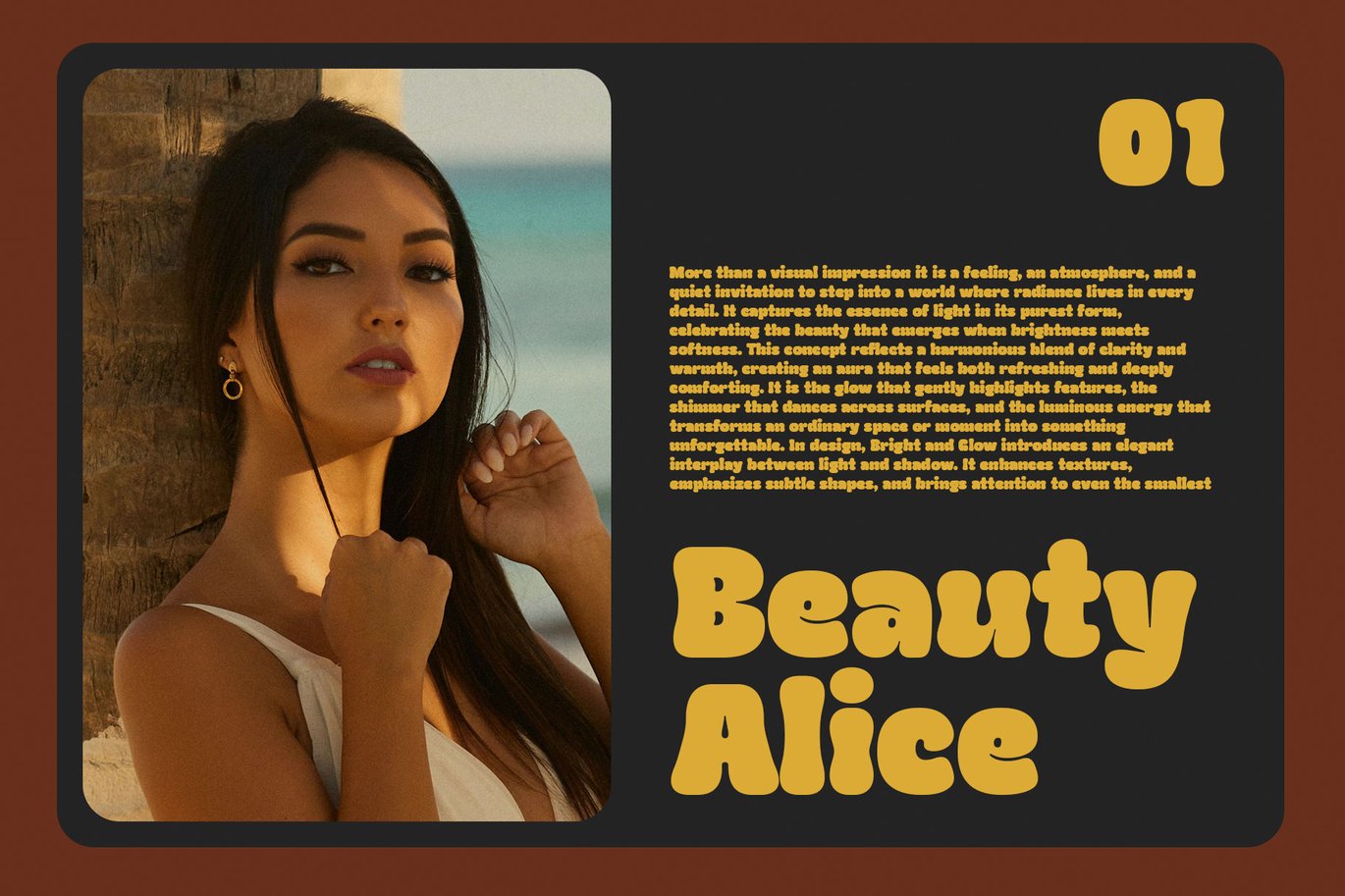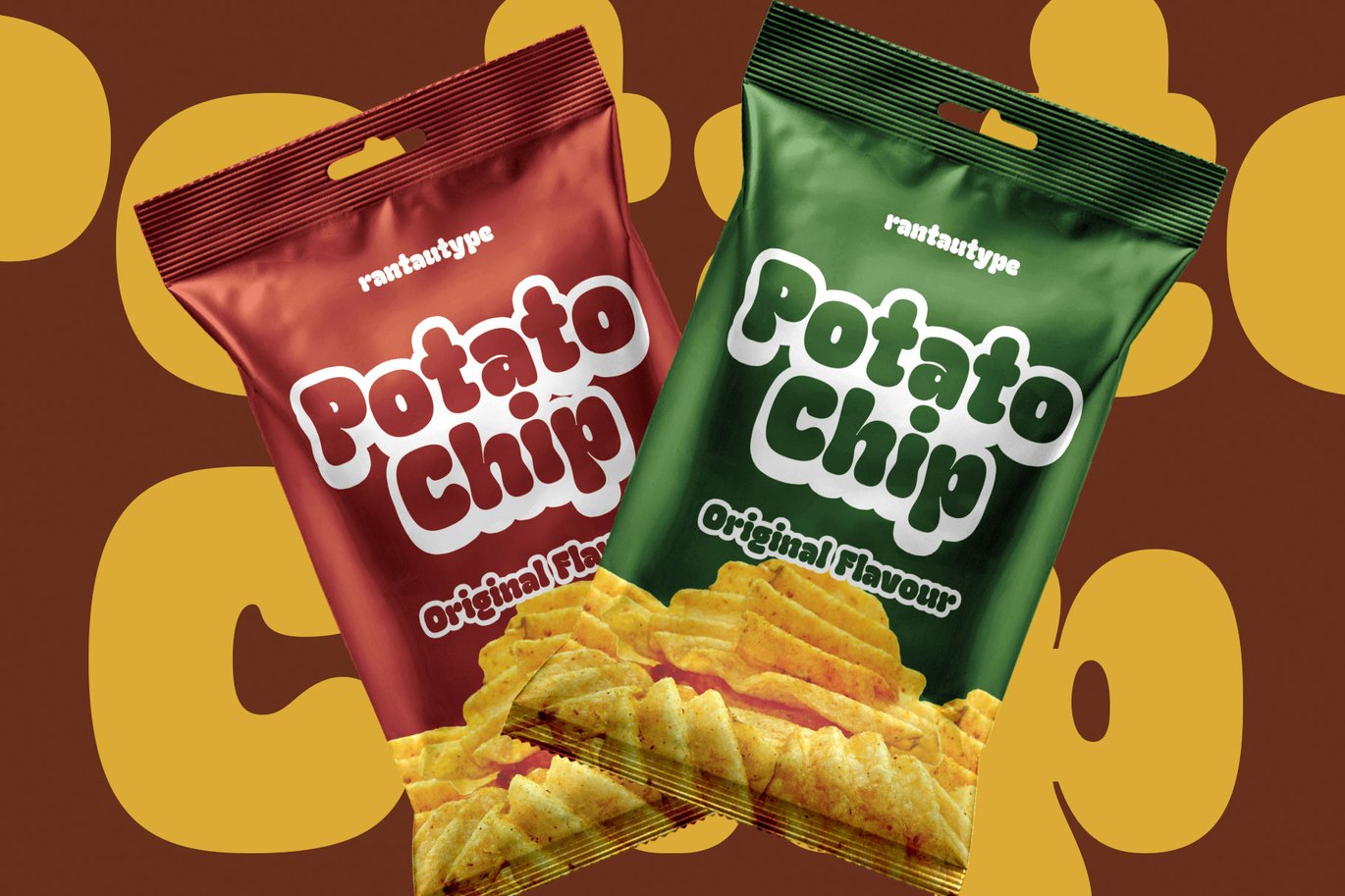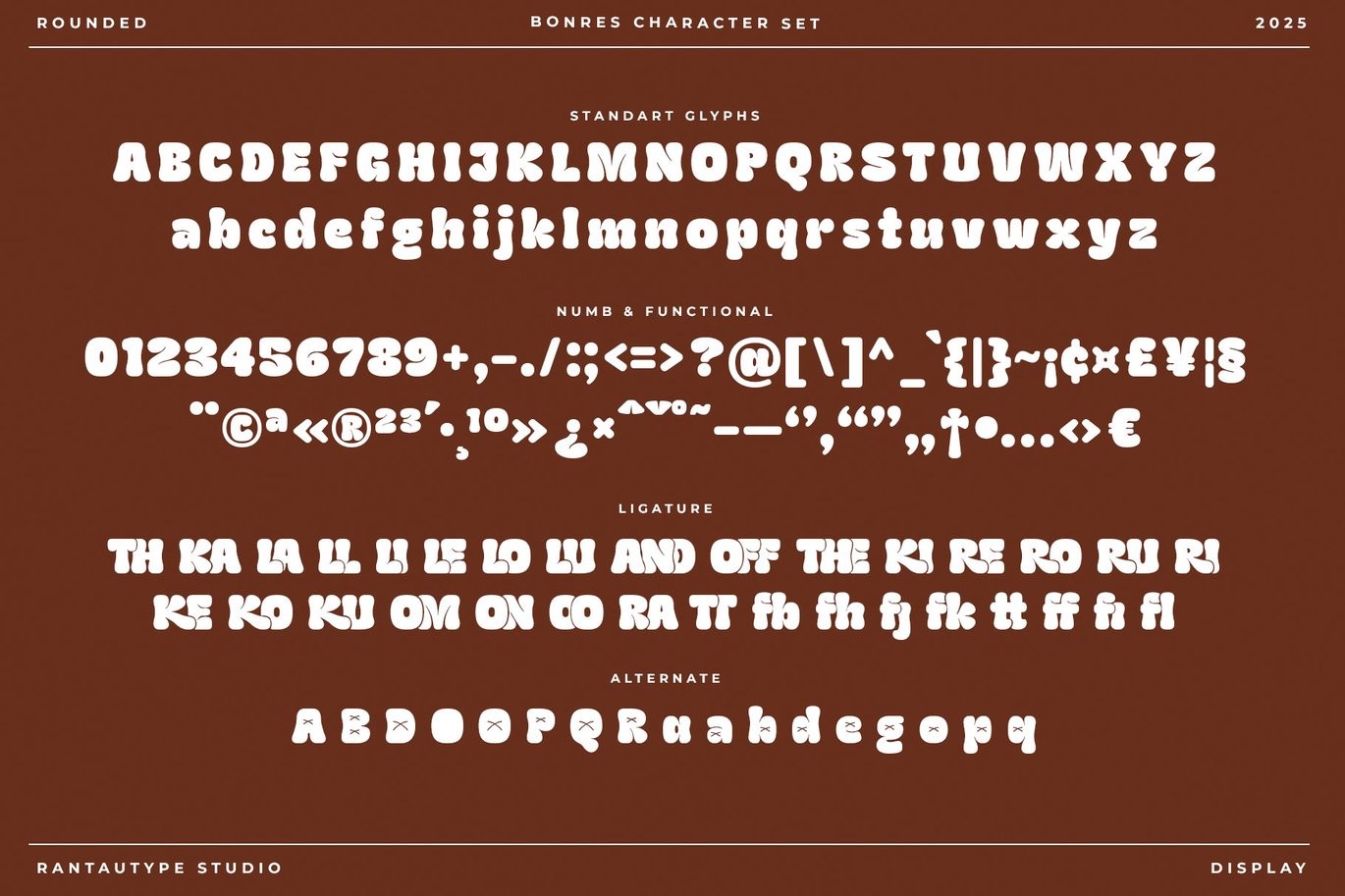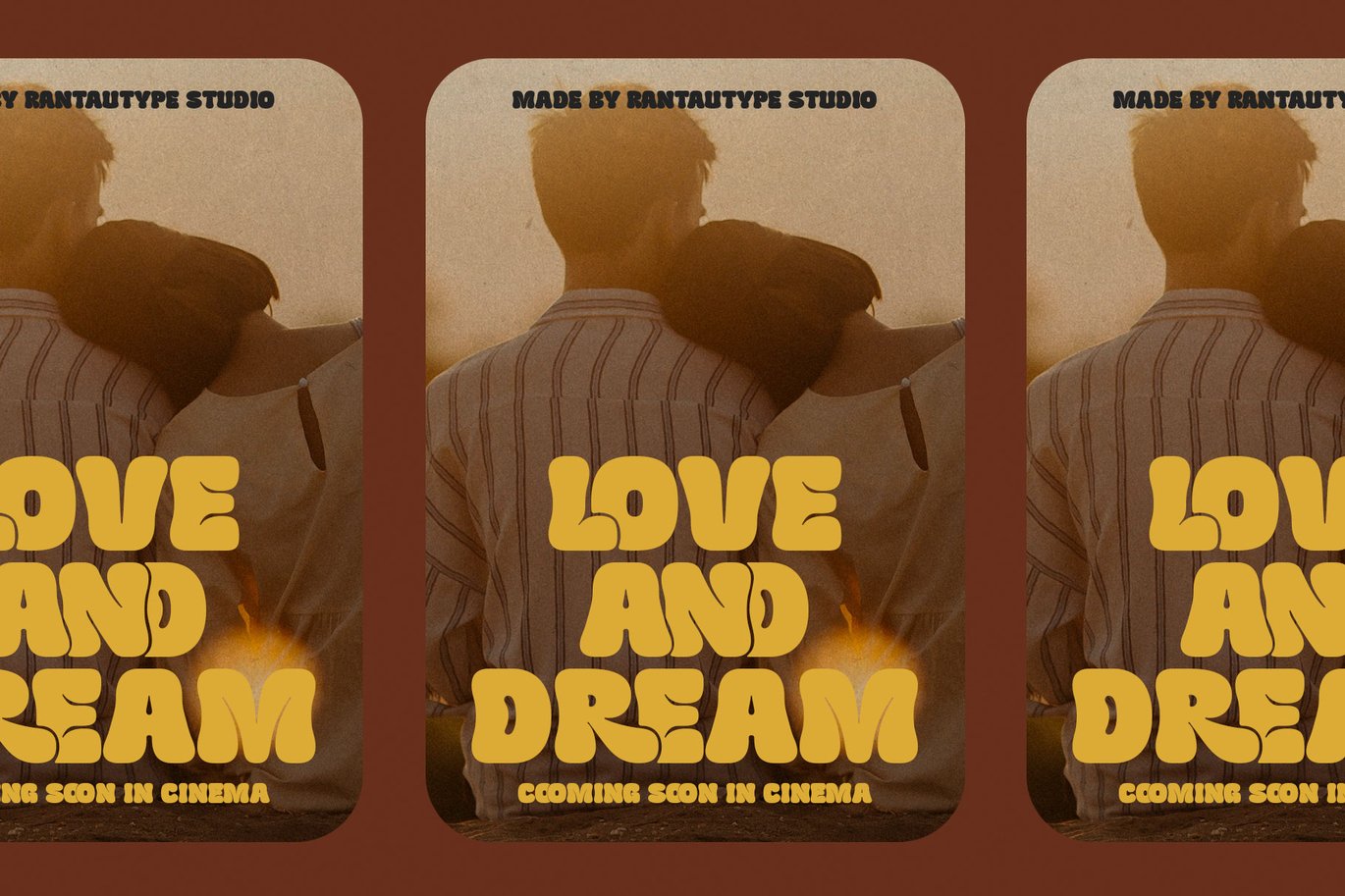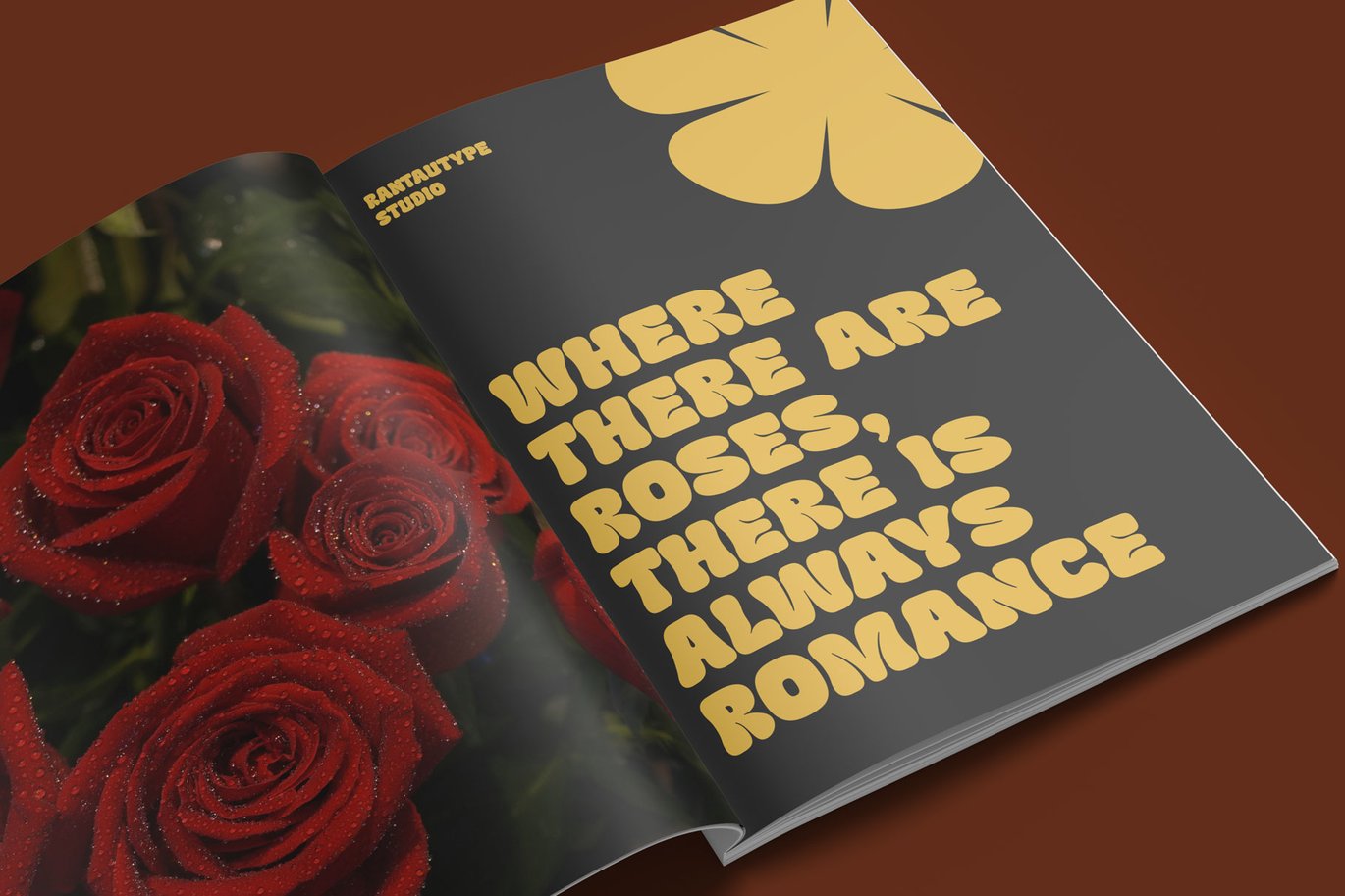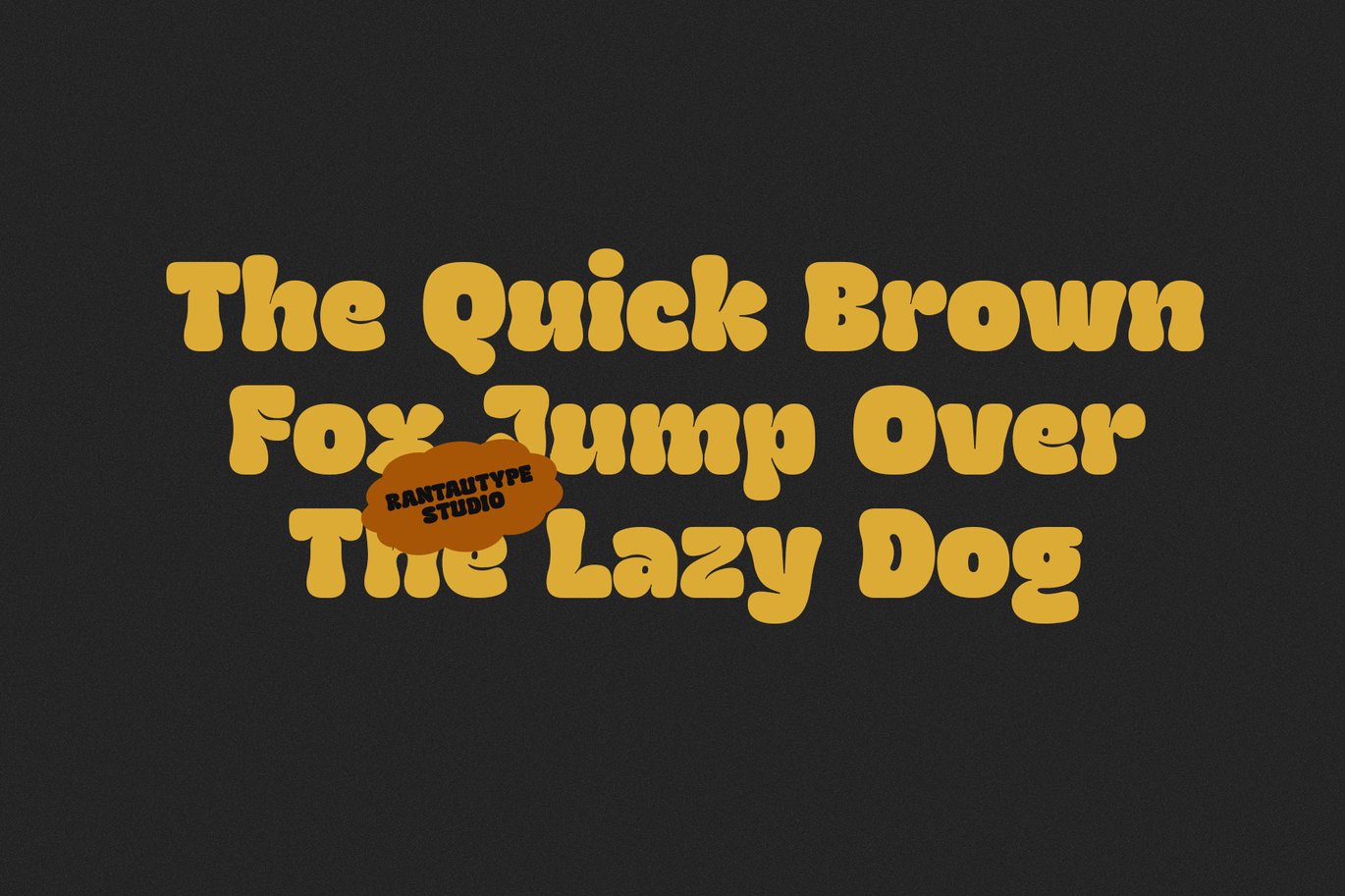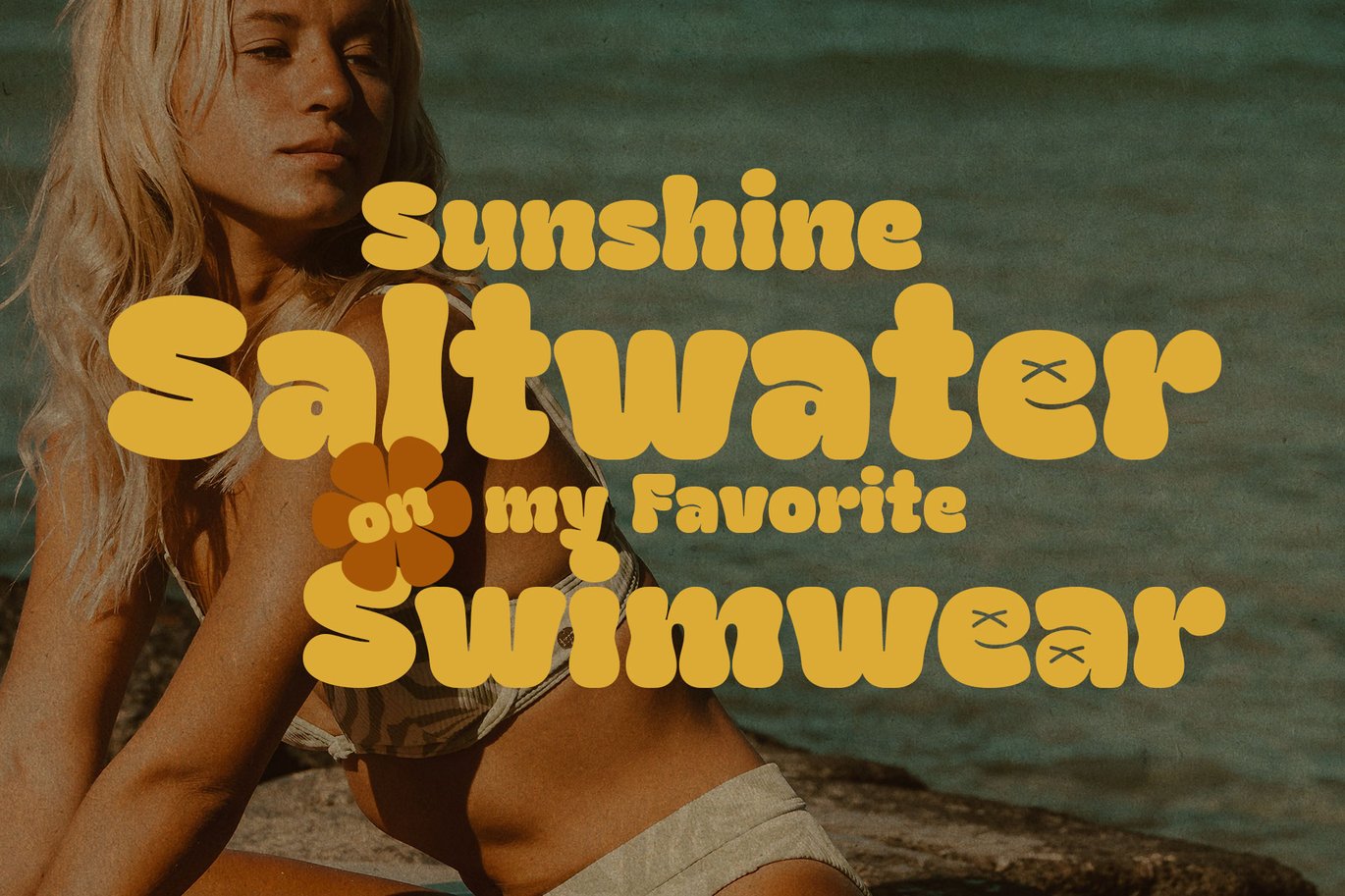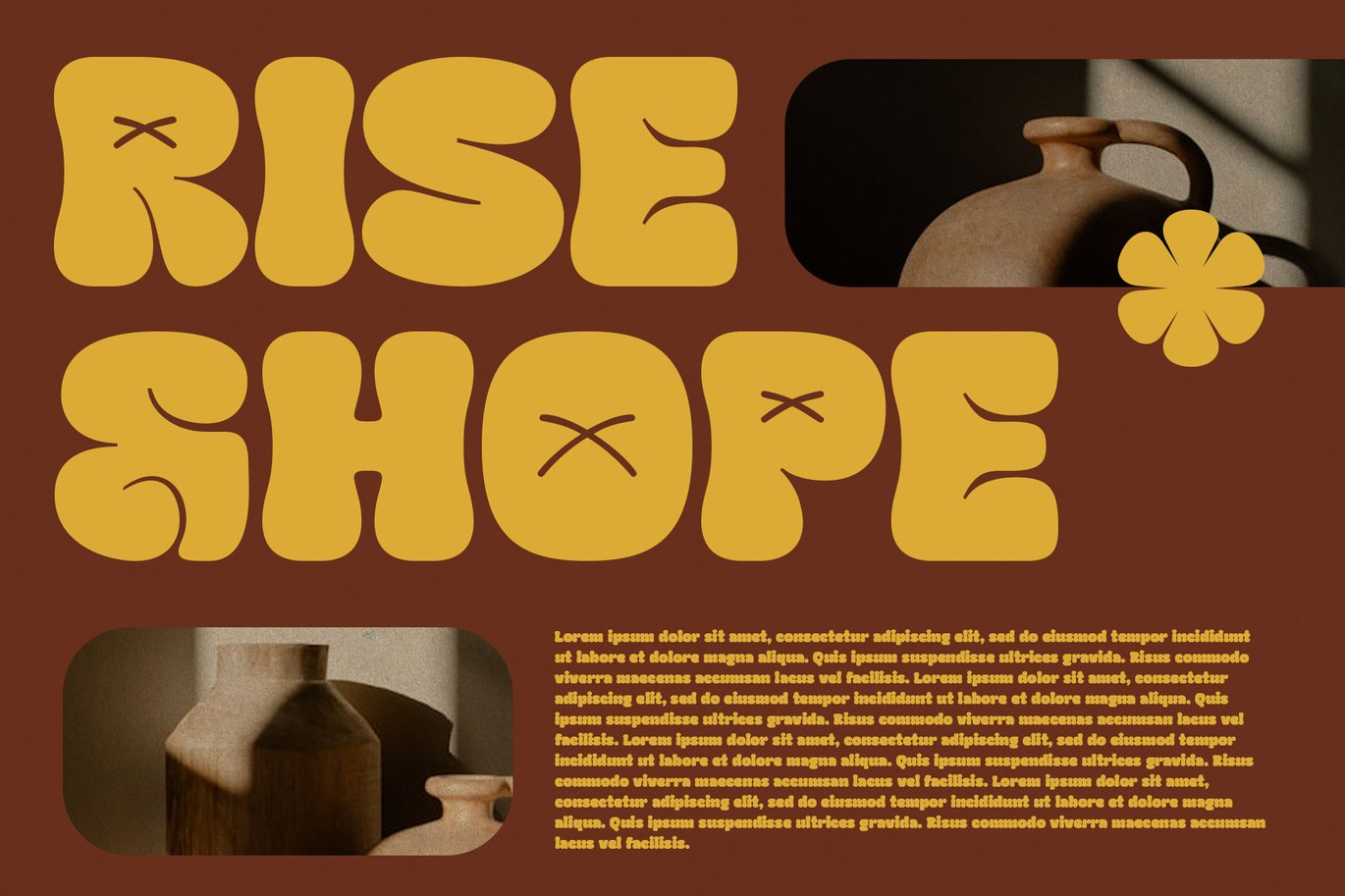
Bonres - Rounded Display Font
Bonres is celebration of playfulness, creativity, and visual charm crafted for designs that demand personality and presence. Bonres come with bold curves and smooth edges, this typeface radiates warmth and friendliness, making every letter feel approachable and full of life. Its rounded terminals soften each character, giving the font a bubbly, energetic rhythm reminiscent of retro pop culture, modern digital aesthetics, and youthful branding.
Bonres is a perfectly choice for any creative endeavor, chic, lifestyle design such as logotype, advertisements, watermark on photography, stationery, branding project, display and magazine, invitation, corporate brand, product design, label, business project and many other project with playful touch.